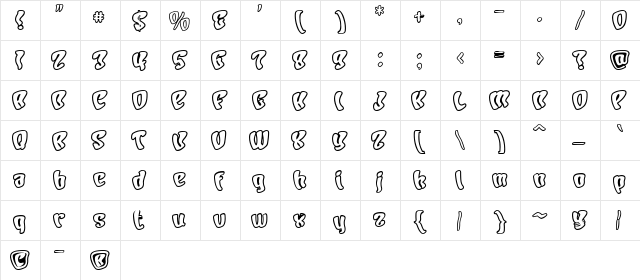
Charamel Open
Design Context for Charamel Typeface
Charamel is a composed and adaptable typeface that performs quietly and consistently across a wide range of design contexts.